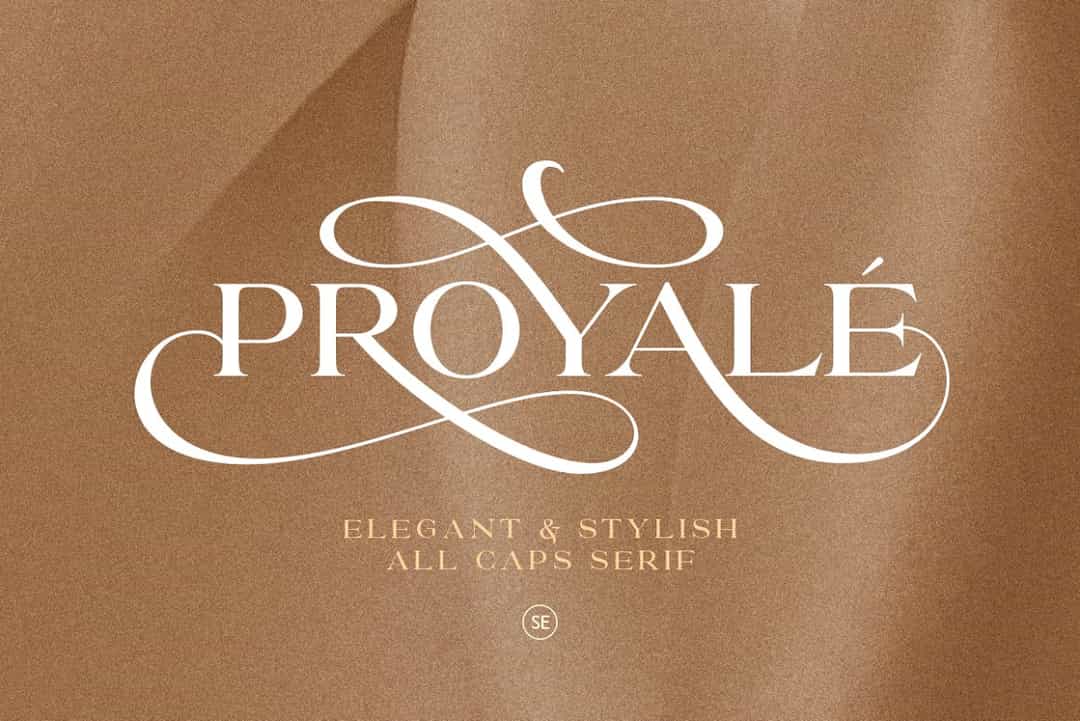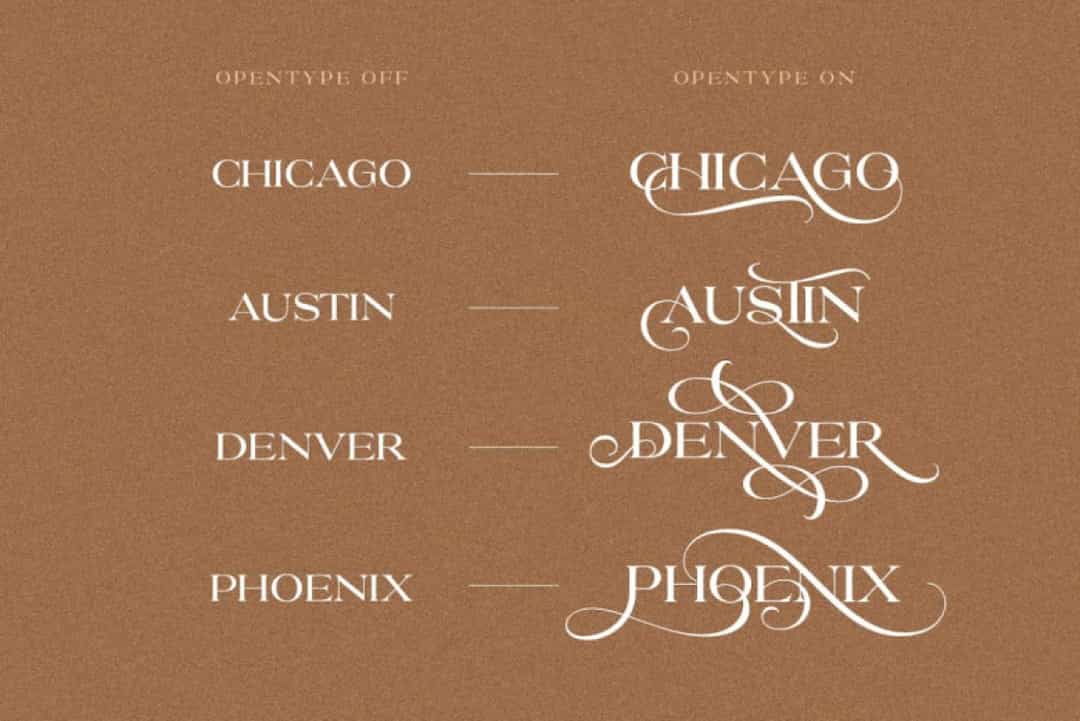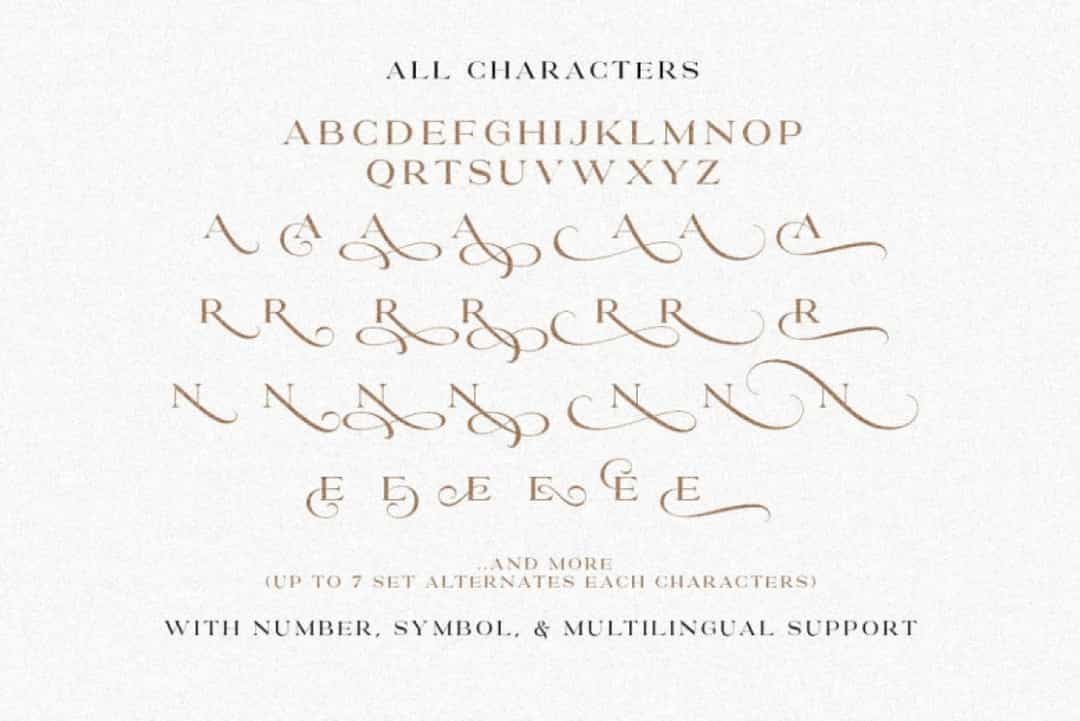
Proyale Font is a classic, elegant and styish all caps serif with a bunch of alternates up to 7 stylish set for each characters that will make your presentation or logo even more stunning and stand out!